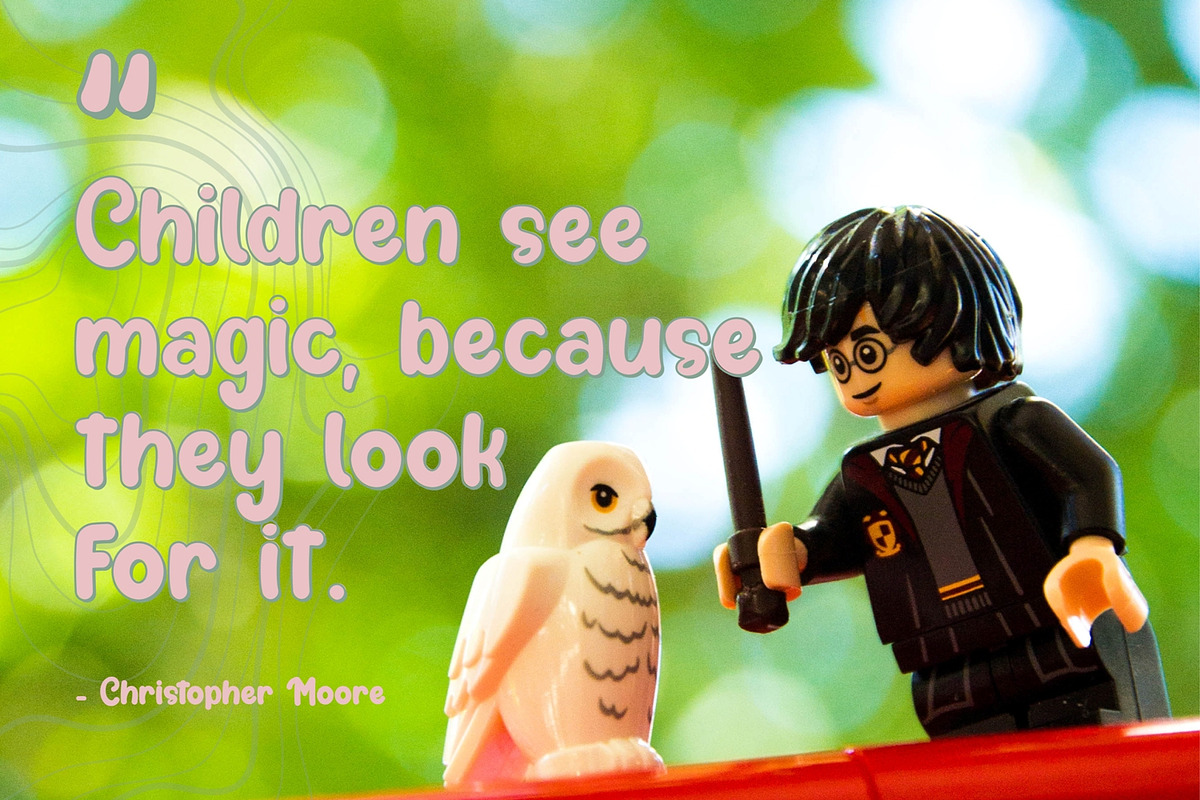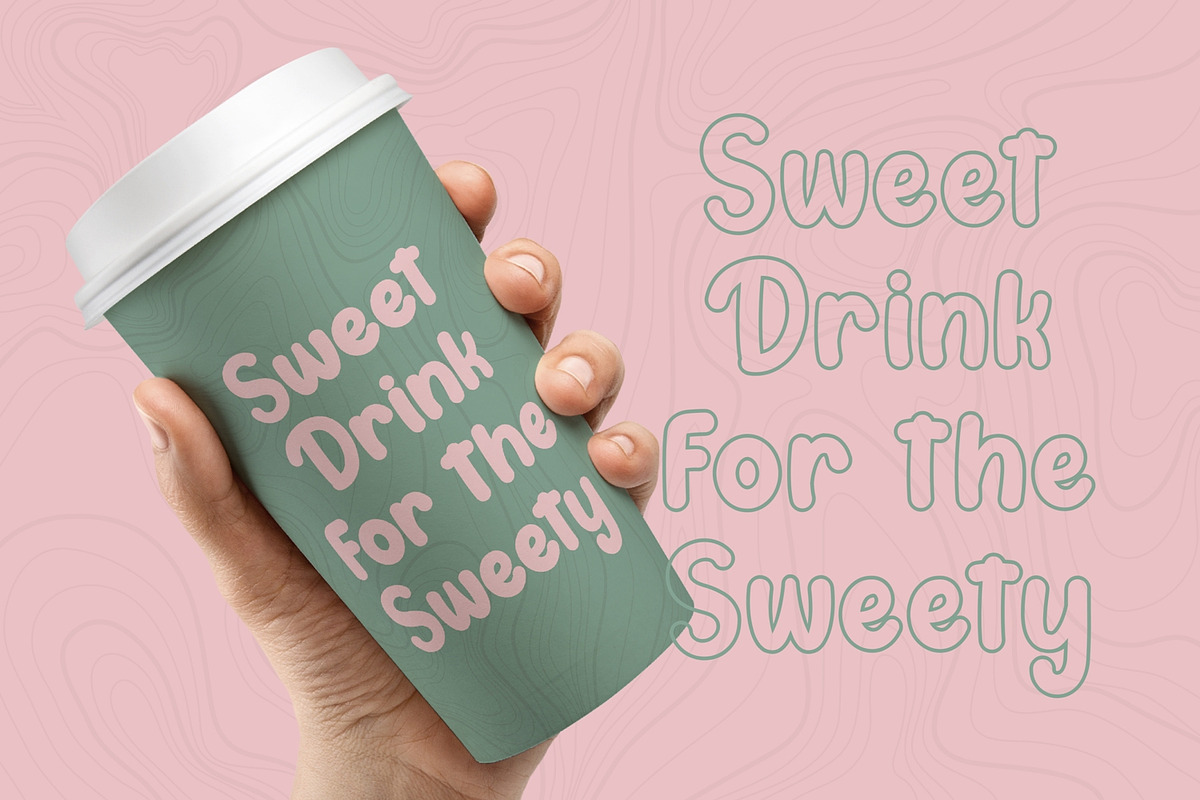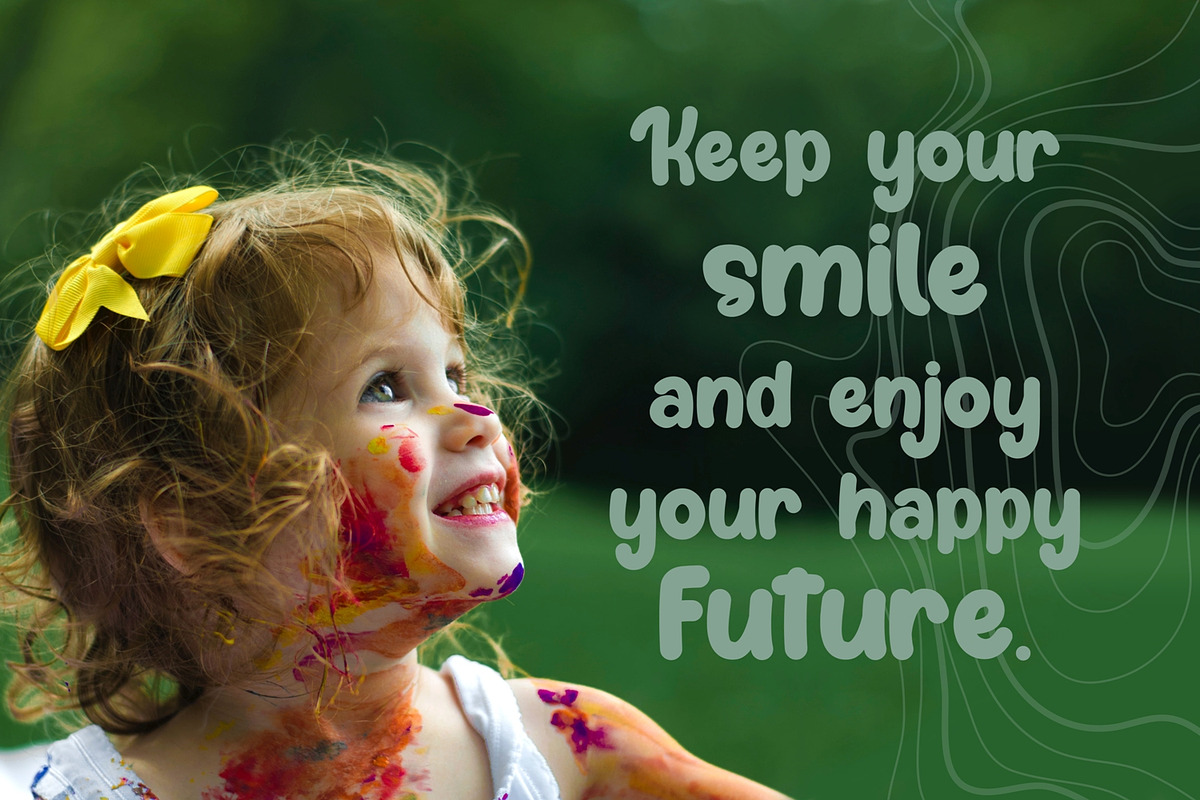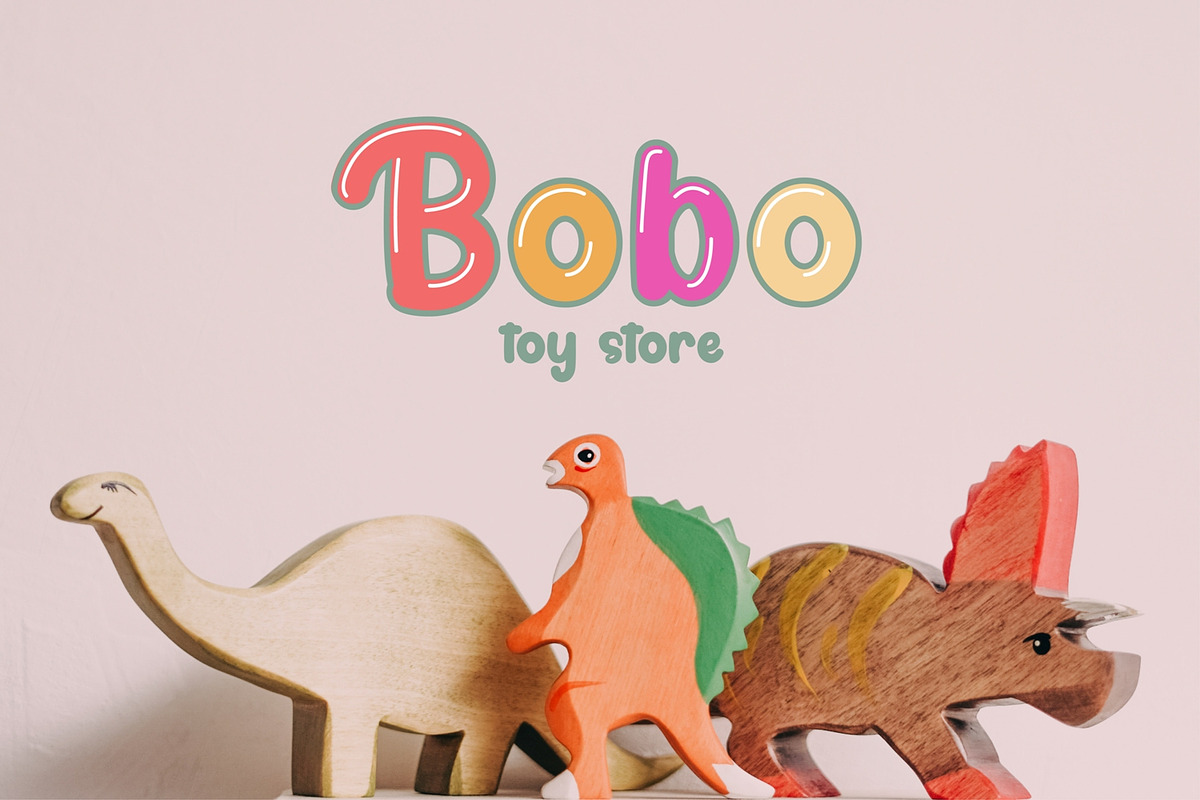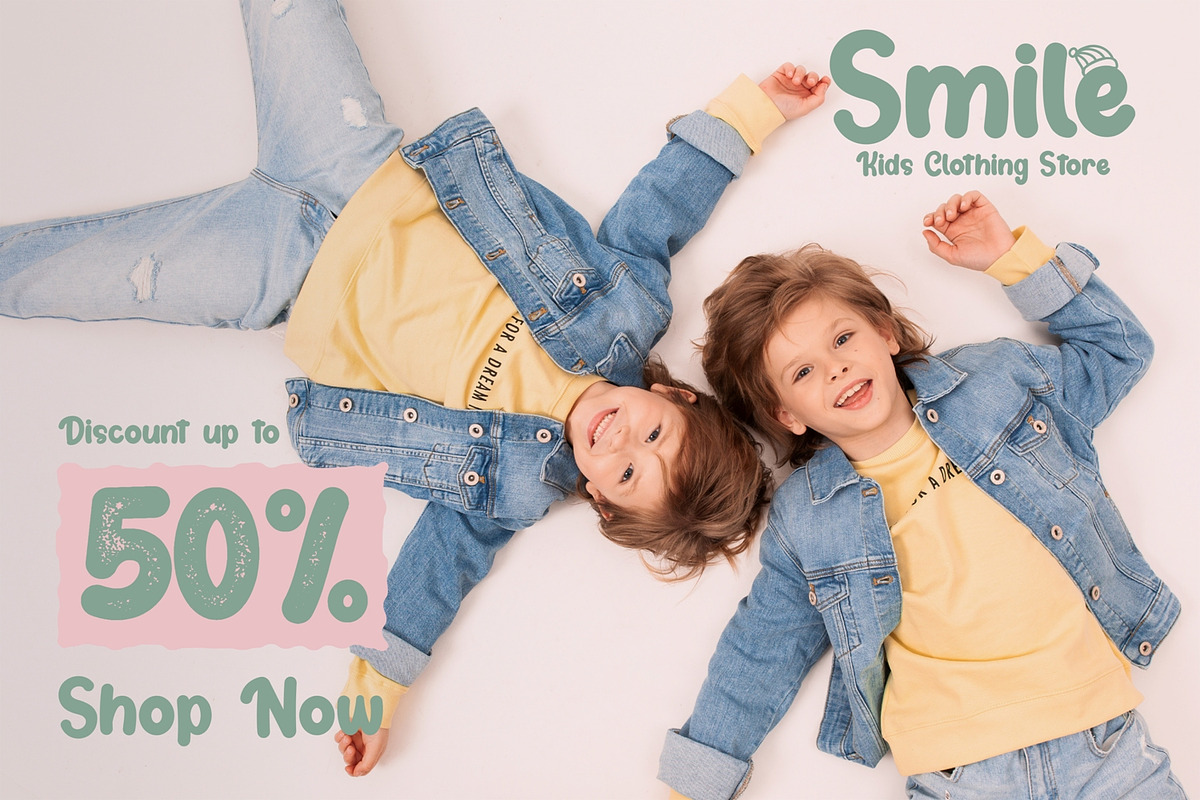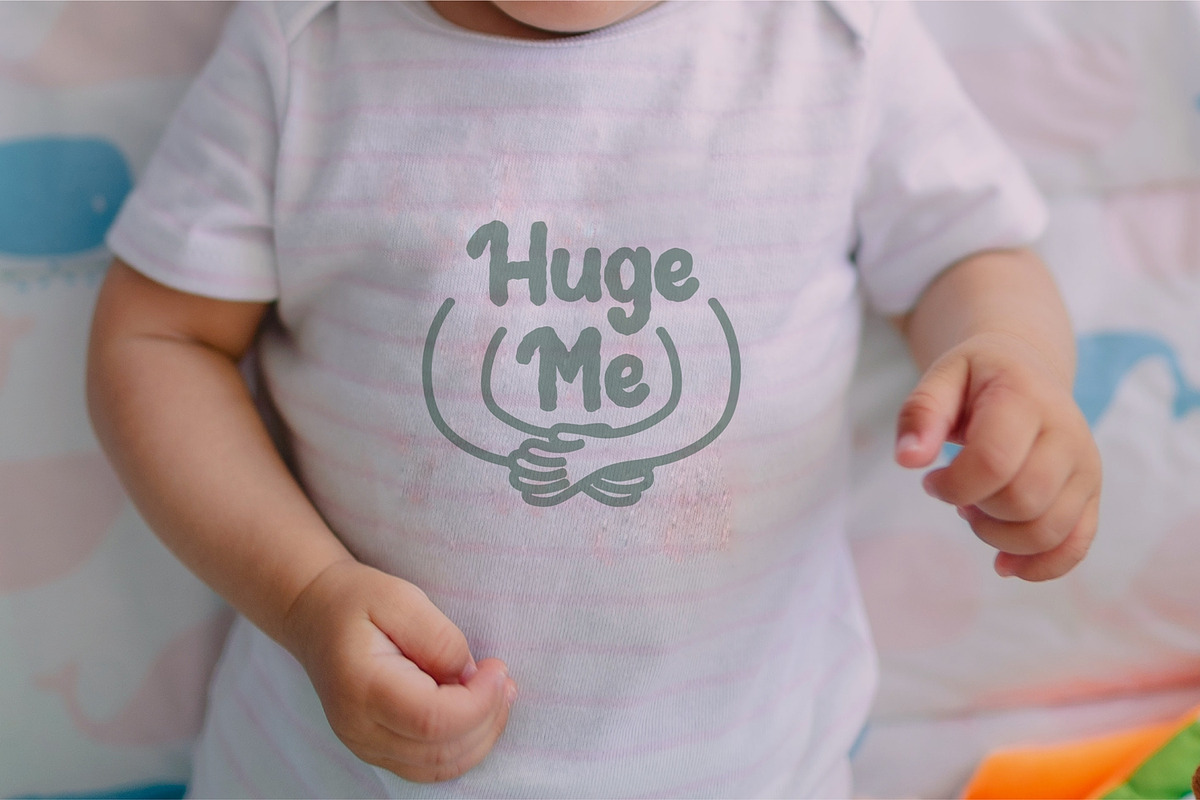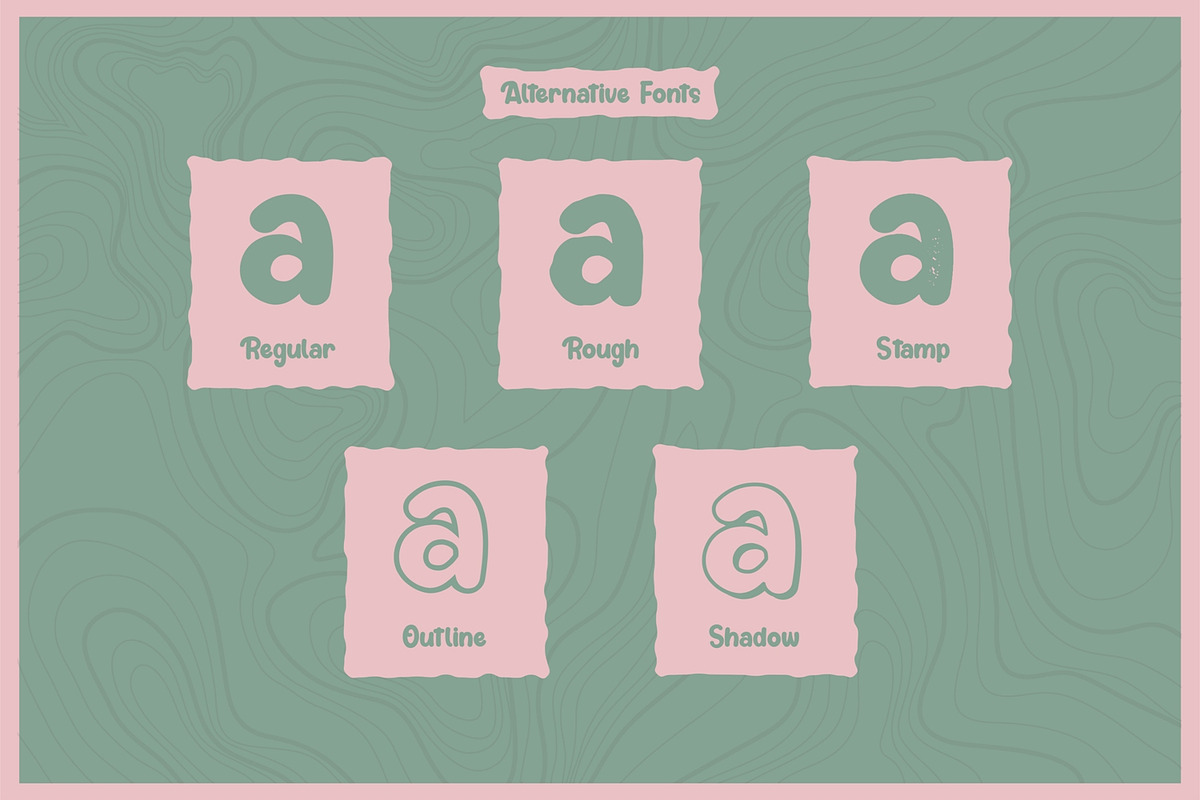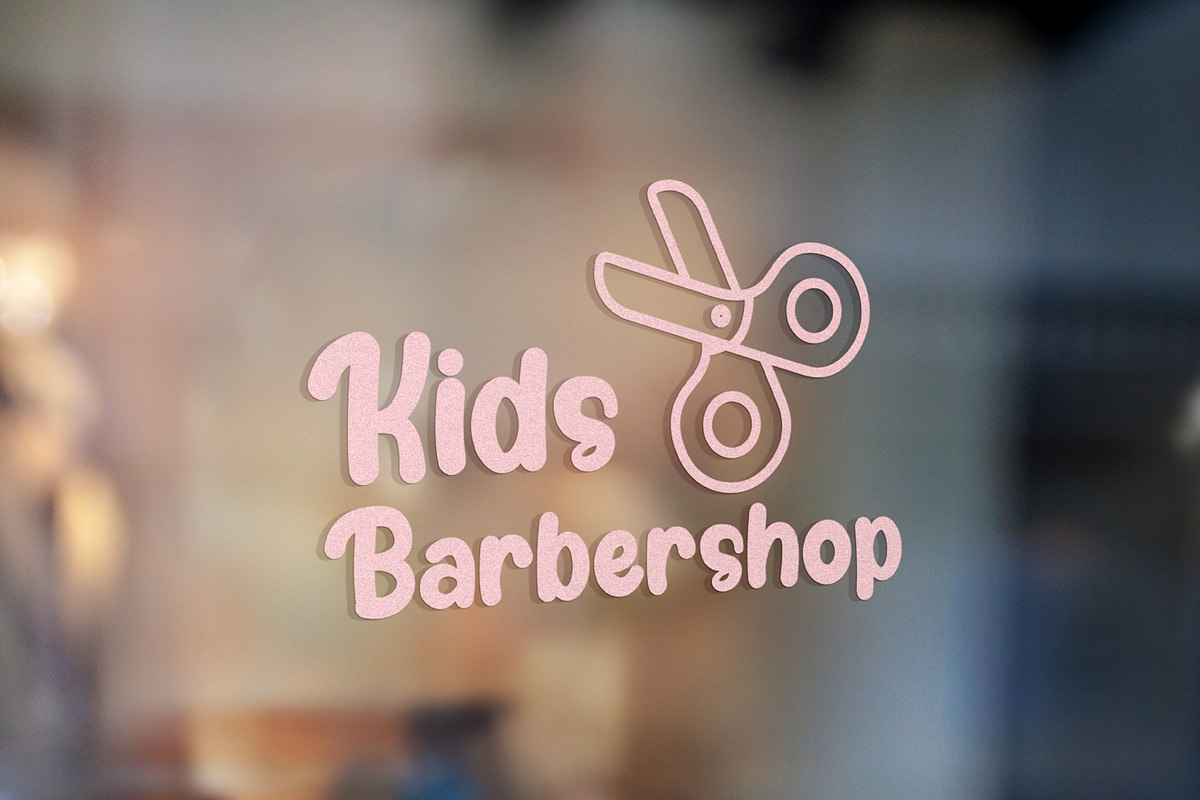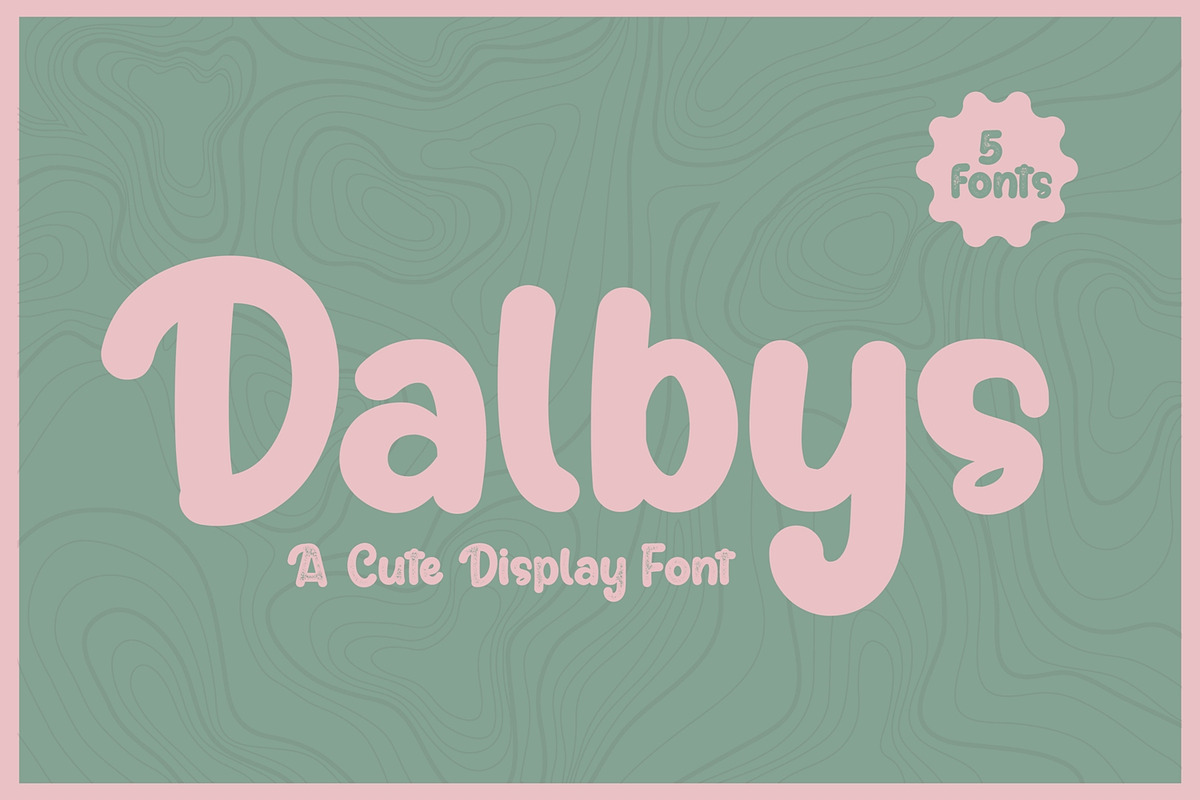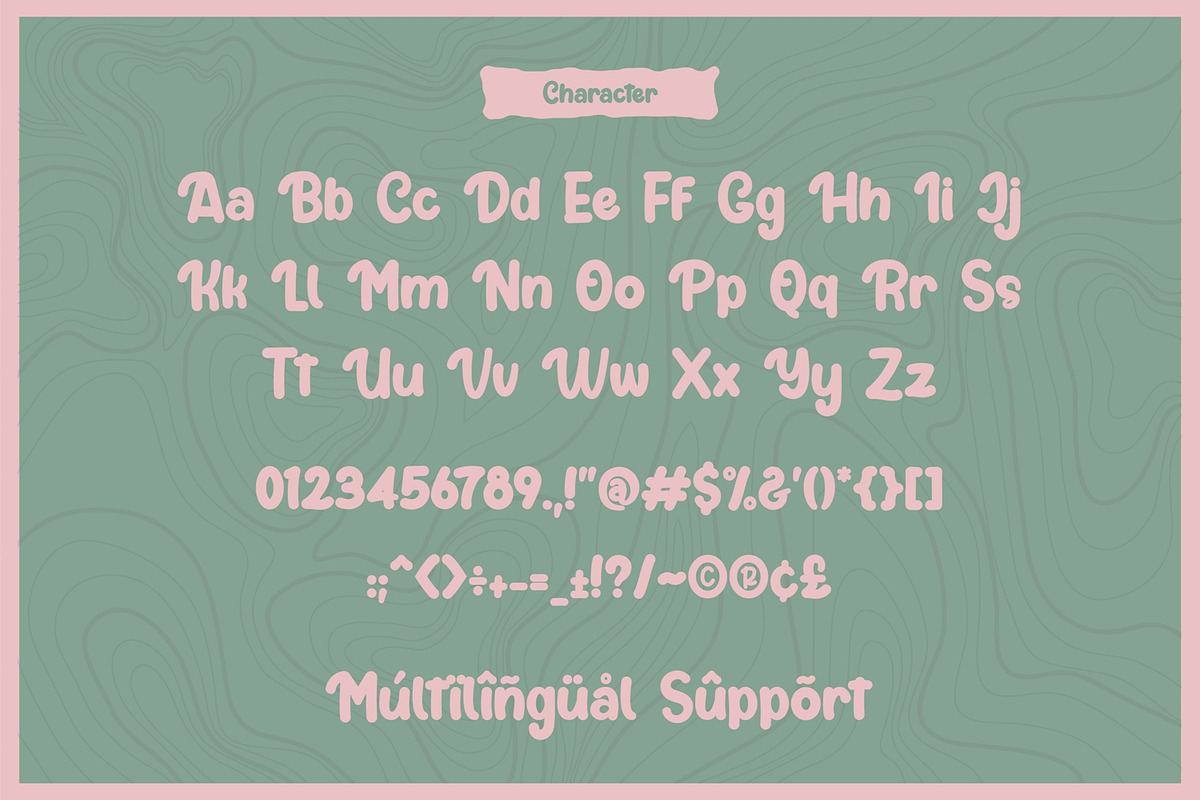
Dalbys
Dalbys Font is our new font with a playful, cute, clean style. Have three styles all of which can be combined for your project. Having a very neat style that is easy to read makes your project more quality. Dalbys Font is easy to use, you only install one OTF or TTF file. You have all the features of Dalbys Font. Dalbys Font is very suitable for various projects according to your needs.